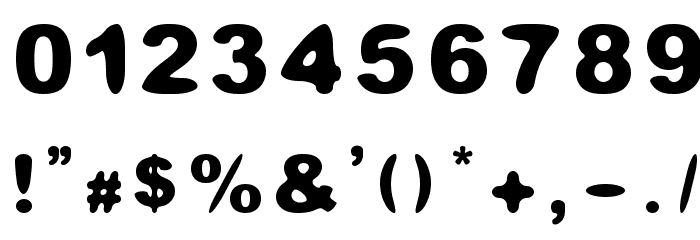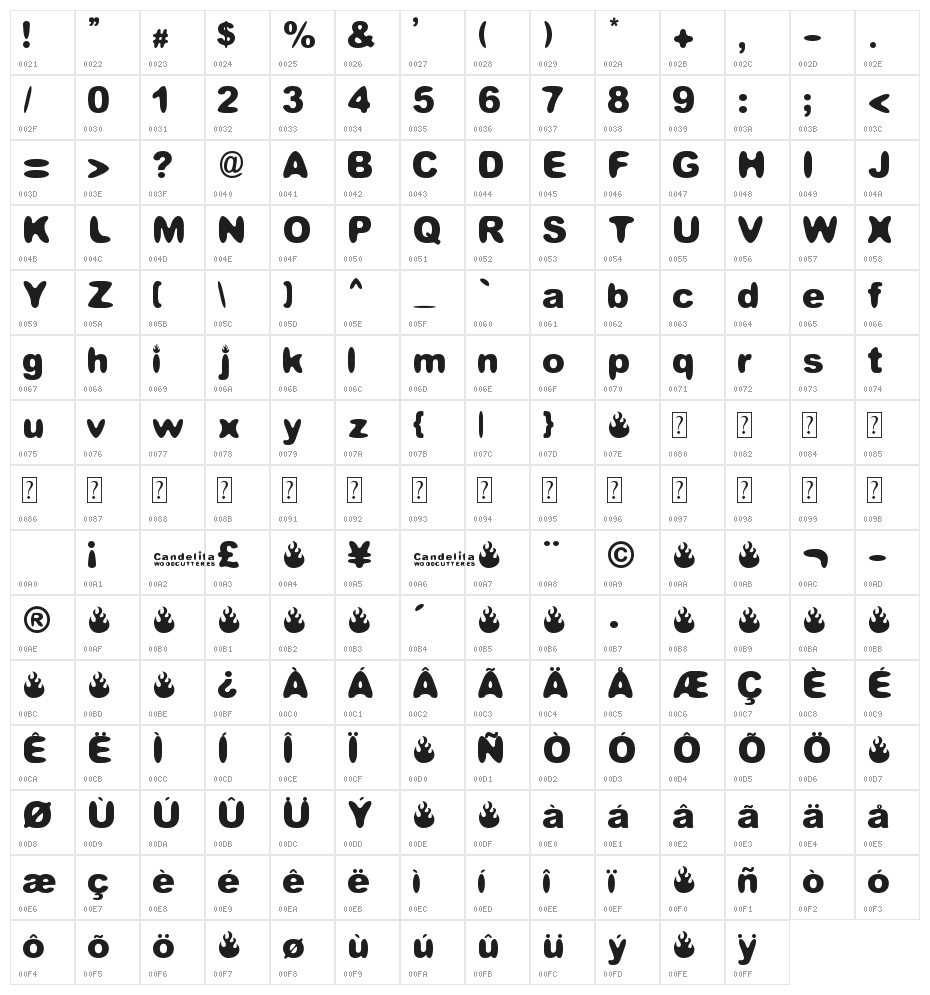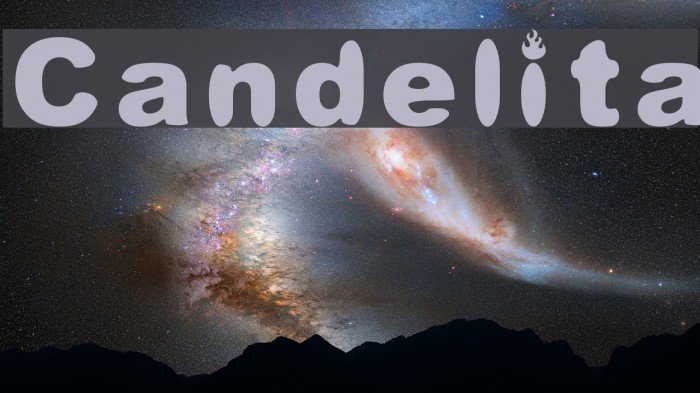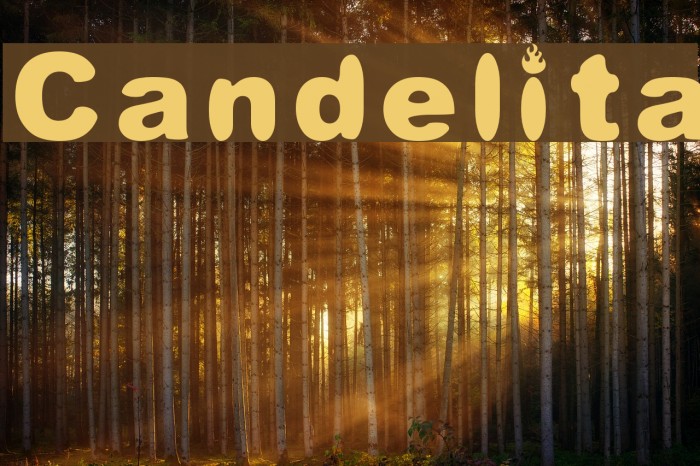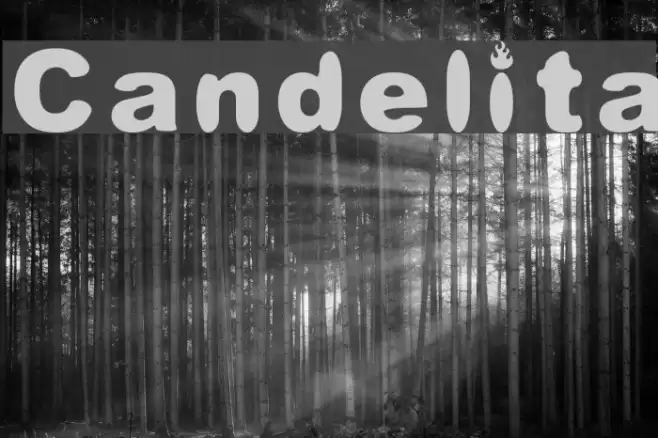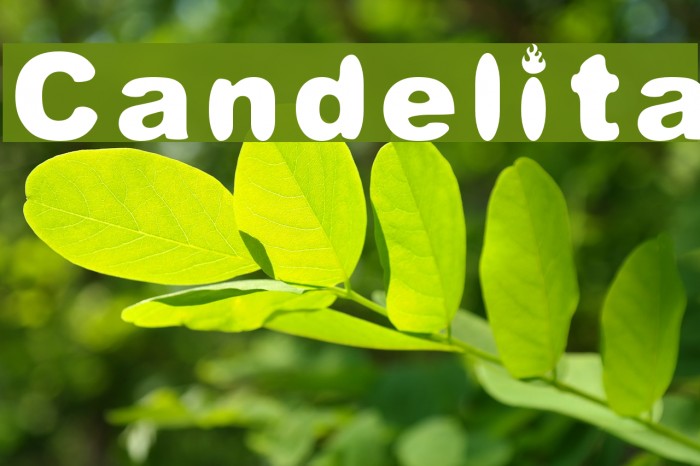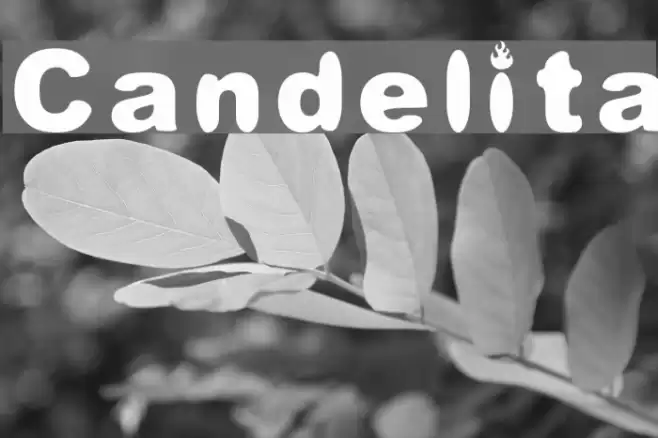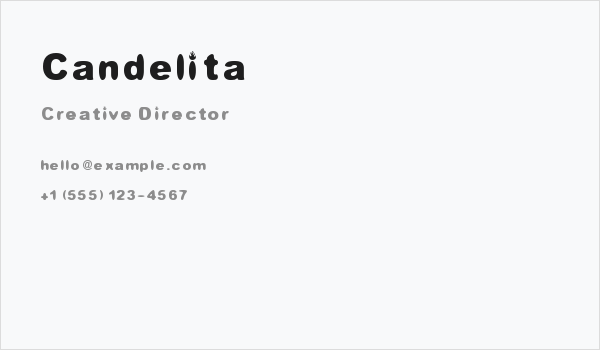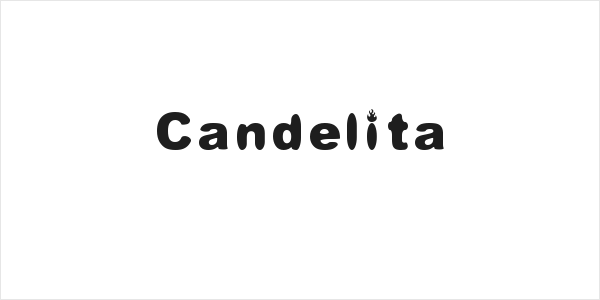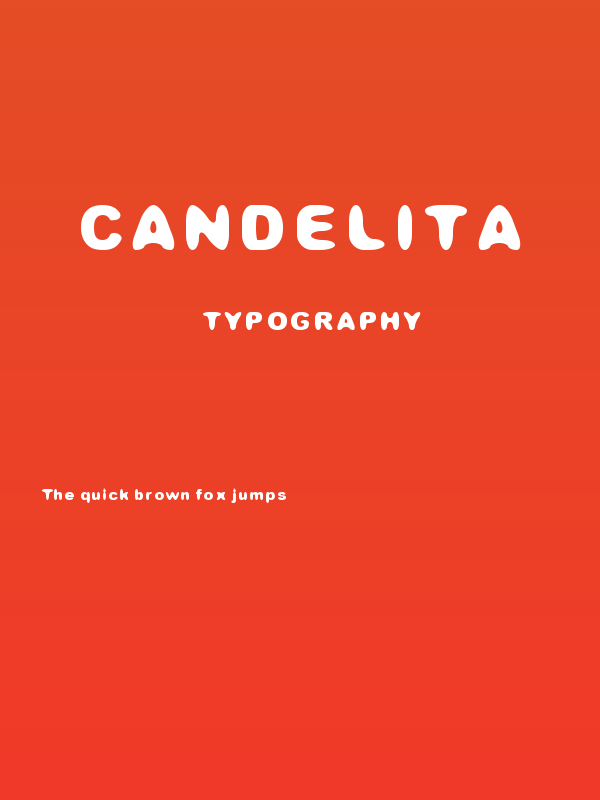
Candelita Font
Candelita Description
This playful and bold font features rounded, bubbly characters that exude a sense of fun and whimsy. The letters are thick and uniform, with a consistent stroke width that gives them a solid and substantial appearance. The uppercase and lowercase letters maintain a cohesive style, with slight variations in the curves and angles that add a touch of uniqueness to each character. The numerals are equally bold and rounded, ensuring readability while maintaining the font's playful aesthetic. Special characters are designed with the same attention to detail, seamlessly integrating with the overall style. This font is perfect for projects that require a cheerful and approachable look.
Overall StylePlayful, Whimsical
Proposed ProjectsIdeal for children's books, playful branding, party invitations, and any project that requires a cheerful and approachable aesthetic.